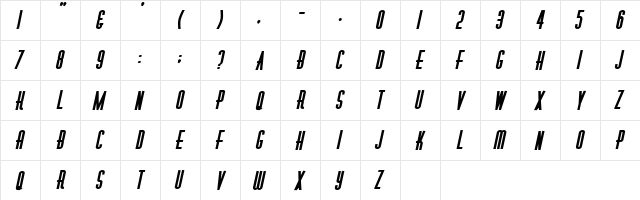
Houri Oblique
Houri takes a measured approach to typography — its balanced proportions and neutral character make it a reliable workhorse for both digital and print work. Its italic angle brings a sense of urgency and motion to the letterforms.
Pro Tip: Use Houri for emphasis, pull quotes, and subheadings where its slanted energy can add rhythm to the layout.